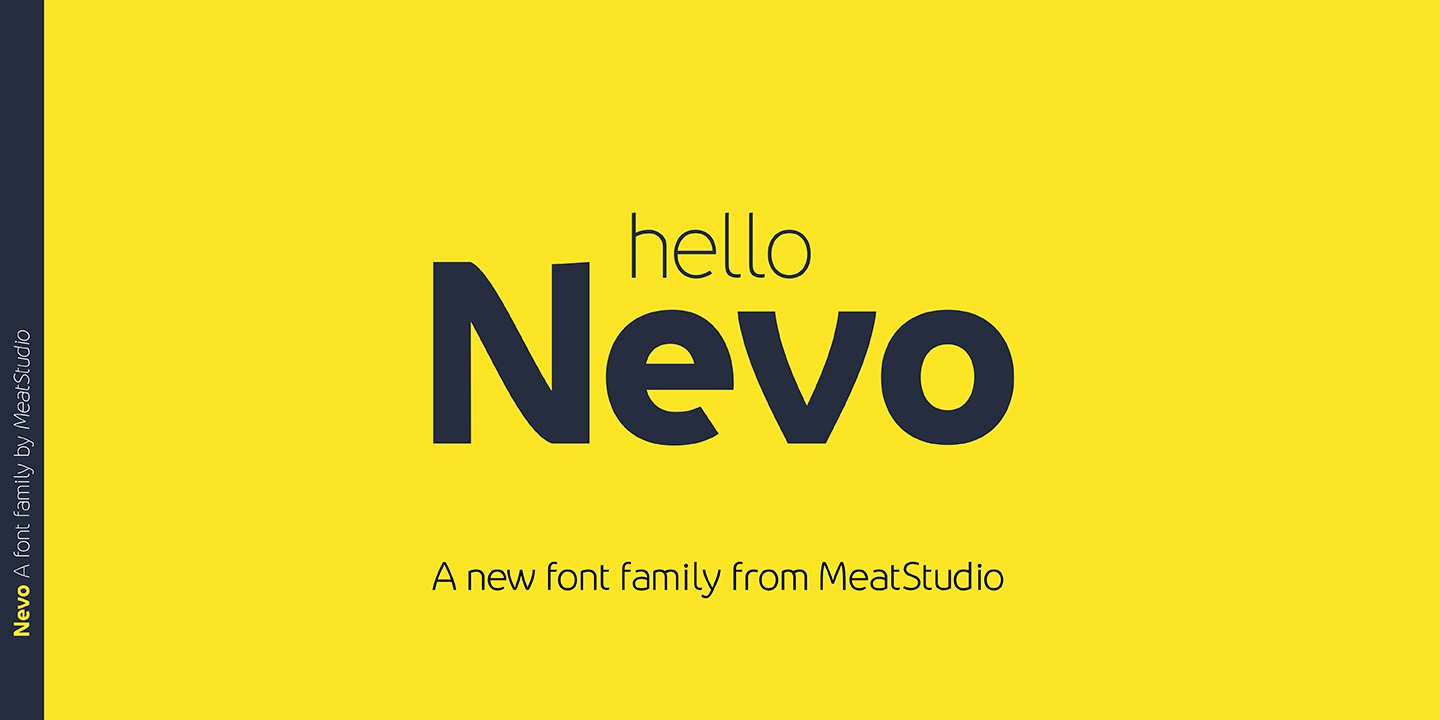
This contemporary typeface is an outstanding choice for projects that demand a fresh, clean, and highly versatile aesthetic. Imagine it forming the core of innovative tech startup branding, providing crisp readability for modern web applications, or adding a sophisticated touch to editorial designs. Nevo Font is also perfectly suited for crafting minimalist logos, designing intuitive user interfaces, or creating impactful yet understated marketing materials. Its harmonious proportions and straightforward appeal make it an ideal option for any design seeking to convey clarity, efficiency, and a forward-thinking sensibility, such as corporate reports, educational content, or smart product packaging.
What makes Nevo Font so exciting? It strikes a masterful balance between geometric precision and humanistic warmth. The letterforms are often characterized by open counters and well-defined shapes, ensuring excellent legibility across various sizes and mediums. This font doesn’t just present information; it organizes it with an inherent sense of calm and clarity, making complex data feel approachable. It’s engineered to perform exceptionally well in both display and body text, making it a true workhorse for designers. The inherent neutrality and adaptability of its character shapes make it particularly effective for brands that champion transparency, innovation, and a universally appealing modern identity.
The Nevo Font family typically offers a comprehensive range of weights and styles, providing extensive flexibility for designers. You can expect to find a broad spectrum of options, including Thin, Light, Regular, Medium, Bold, and perhaps even an Extra Bold or Black weight, along with corresponding italic versions. Each weight is meticulously designed to maintain the font's core characteristics while offering distinct visual impacts and contributing to a well-defined typographic hierarchy. These variations allow for the creation of sophisticated and highly functional text layouts, ensuring seamless integration across diverse design applications. The extensive family ensures that Nevo Font can be the singular typeface for an entire brand system, guaranteeing visual consistency and a polished, professional appearance.
Whether you're building a groundbreaking digital platform, developing a new corporate identity, or simply need a typeface that speaks with quiet confidence and modern elegance, Nevo Font Free Download is an exceptional choice. Its practical design and broad versatility will ensure your message is always delivered with utmost clarity and contemporary appeal.